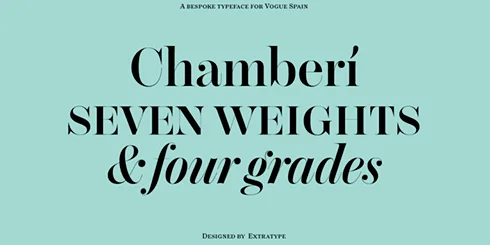
Chamberi Font Family
Chamberi Font Family is perfect for luxury hotel branding, sophisticated interior design, elegant chamber music venues, upscale boutique signage, refined hospitality marketing, exclusive private club materials, aristocratic event invitations, premium residential developments, distinguished cultural institutions, and sophisticated lifestyle campaigns.
Chamberi Font Family is exciting because it embodies intimate luxury and refined sophistication through elegant letterforms that convey exclusivity, cultured taste, and aristocratic elegance with distinguished charm. This luxuriously designed typeface combines chamber music refinement with contemporary functionality, making it perfect for brands that want to communicate intimate luxury, sophisticated taste, and exclusive experiences that appeal to discerning clientele seeking refined cultural experiences.
The Chamberi Font Family includes refined weights with chamber-inspired character styling, featuring aristocratic design elements and sophisticated decorative variations. The font showcases elegant design details, luxury-optimized proportions, and distinguished character characteristics that create a comprehensive typographic system for exclusive and culturally-sophisticated brand applications.
The aristocratic sophistication of Chamberi Font Family makes it an invaluable tool for luxury hotels, cultural institutions, and exclusive service providers that need typography capable of communicating refined elegance and intimate luxury. The font's distinguished character helps establish connections with affluent audiences seeking sophisticated cultural experiences, exclusive services, and intimate luxury that reflects refined taste and aristocratic values.
Luxury hotels, chamber music venues, and exclusive cultural institutions consistently choose Chamberi Font Family for its ability to convey aristocratic elegance and cultural sophistication through typography. The font excels in applications where establishing luxury credibility and exclusive appeal are essential to brand positioning, making it particularly effective for luxury hospitality, cultural events, and exclusive brands targeting affluent, culturally-sophisticated consumers.
This font's comprehensive character set includes aristocratically-styled letterforms, refined numerals, elegant punctuation marks, and cultural symbols that support authentic luxury typography composition. The consistent sophisticated styling maintains the chamber elegance theme throughout all characters while ensuring professional readability across all luxury and cultural design projects requiring Chamberi Font Family Free Download functionality.